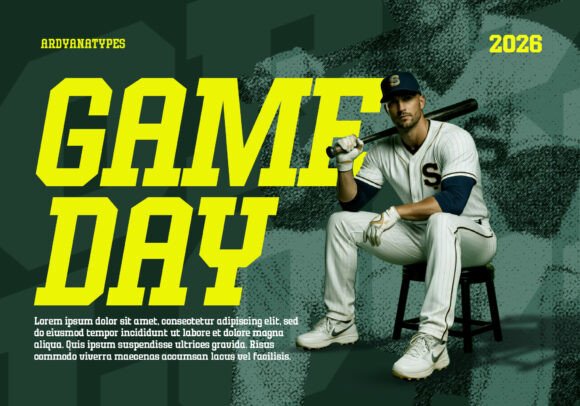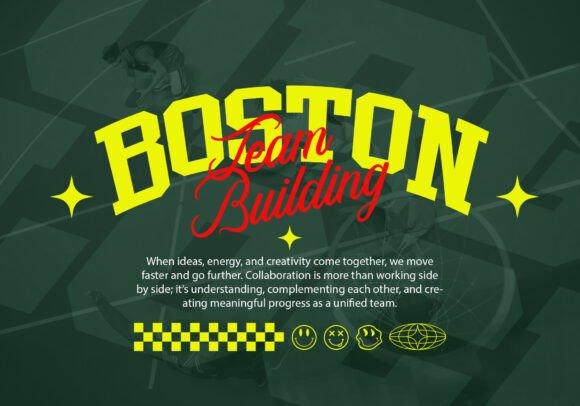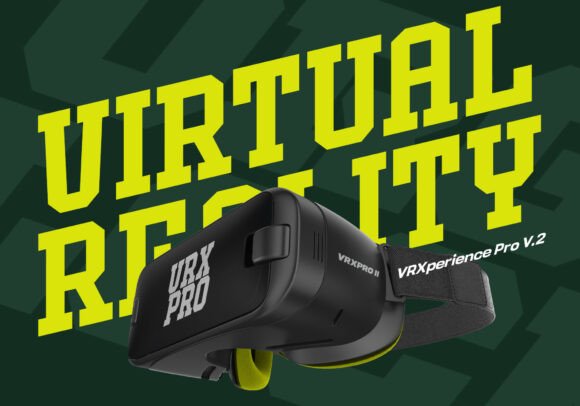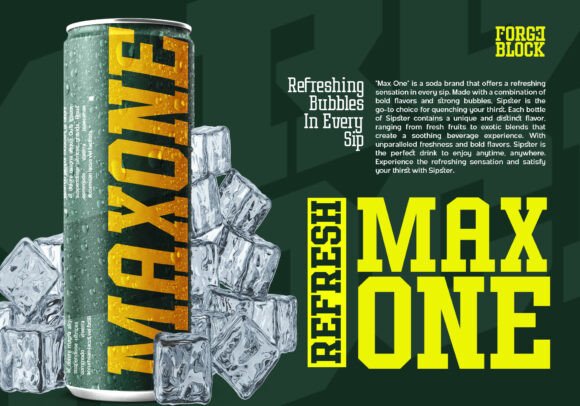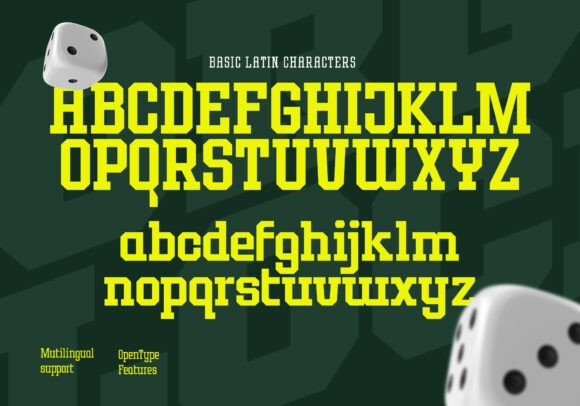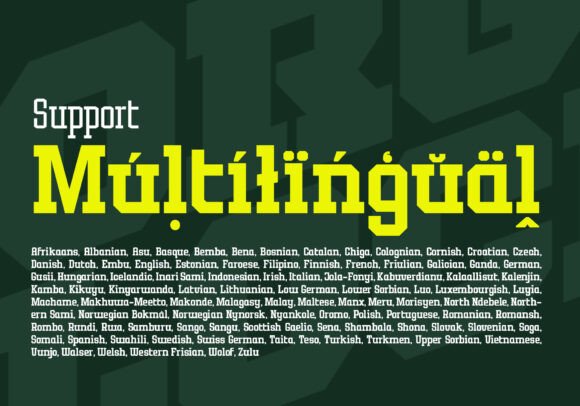
Forge Block Font: Unleash the Power of Bold Typography
In the world of design, typography plays a crucial role in conveying messages, evoking emotions, and creating lasting impressions. When it comes to making a bold statement, few typefaces can match the strength and confidence of Forge Block. This industrial-inspired display font is engineered to deliver visual impact, making it the perfect choice for designers seeking typography that speaks loudly.
The Inspiration Behind Forge Block
Forge Block draws inspiration from the rugged, high-energy aesthetics of industrial, sports, and modern branding. The typeface’s solid construction, sharp edges, and powerful proportions are a testament to its bold and fearless character. By fusing these elements, Forge Block embodies the perfect blend of strength, resilience, and style.
Key Features of Forge Block
- Bold and Assertive: Forge Block is designed to grab attention instantly, making it ideal for headlines, posters, and other applications where impact is crucial.
- Industrial Inspiration: The typeface’s industrial roots lend it a rugged, dependable feel that’s perfect for sports graphics, esports, and technology projects.
- Versatile: Forge Block’s versatility makes it suitable for a wide range of applications, from product packaging to digital promotions.
- High-Quality Construction: With its solid construction and sharp edges, Forge Block exudes confidence and professionalism.
Who Can Benefit from Forge Block?
Forge Block is a valuable asset for designers and crafters working on projects that require bold, attention-grabbing typography. This includes:
- Graphic Designers: Looking for a typeface that can add punch to their designs, whether it’s for posters, flyers, or brochures.
- Branding Experts: Seeking a font that can convey strength, confidence, and professionalism for their clients.
- Esports and Sports Designers: Needing a typeface that can capture the high-energy, competitive spirit of their projects.
- Packaging Designers: Looking for a bold, eye-catching font to make their products stand out on store shelves.
- Digital Marketers: Aiming to create engaging, attention-grabbing promotions that drive results.
Tips for Using Forge Block Effectively
To get the most out of Forge Block, consider the following best practices:
- Use it sparingly: Due to its bold nature, Forge Block works best when used sparingly, such as for headlines or key messaging.
- Pair it with contrasting fonts: Combine Forge Block with cleaner, simpler fonts to create visual contrast and hierarchy.
- Experiment with colors and textures: Don’t be afraid to try out different colors and textures to add depth and interest to your designs.
Forge Block is a powerful, industrial-inspired typeface that’s engineered to deliver strength, confidence, and visual impact. With its bold construction, sharp edges, and versatile nature, this font is perfect for designers and crafters seeking typography that speaks loudly. Whether you’re working on a sports graphics project, a technology campaign, or a product packaging design, Forge Block is the perfect choice for making a bold statement.
Get Ready to Unleash the Power of Forge Block